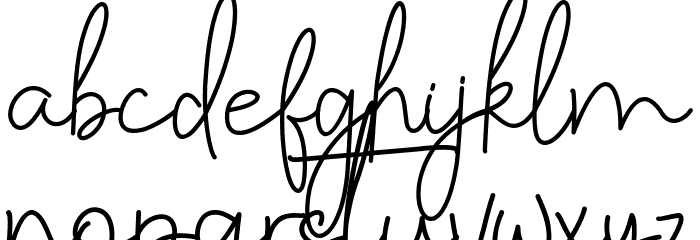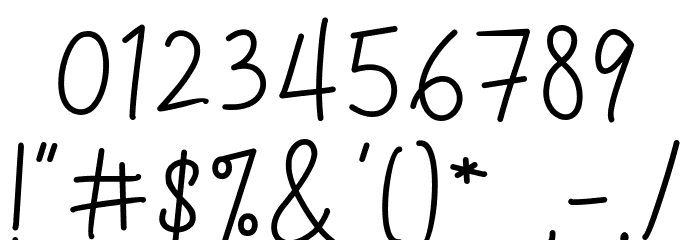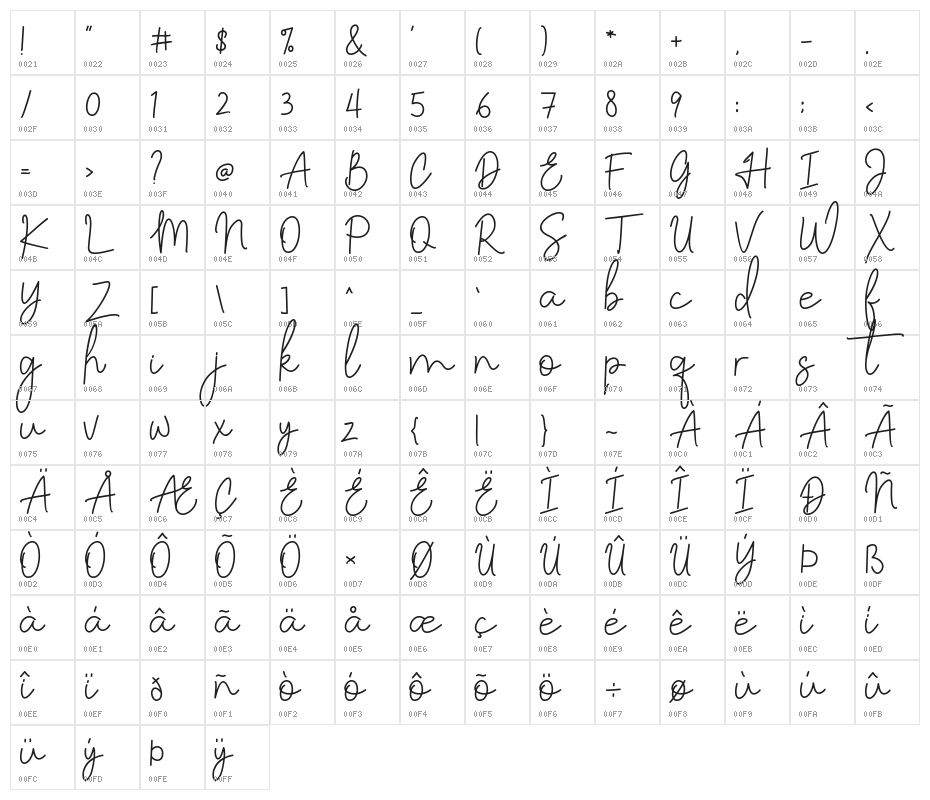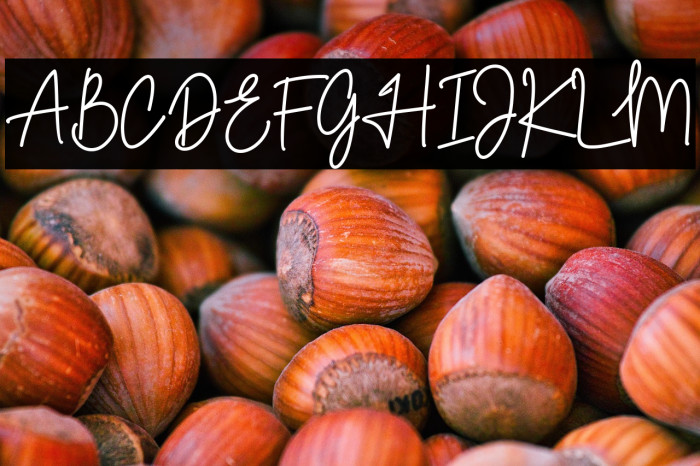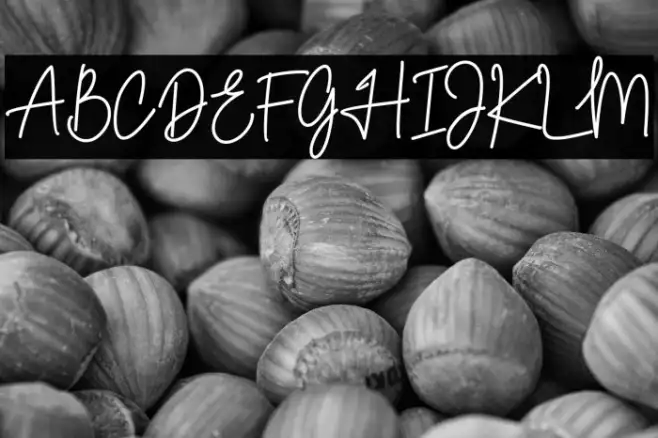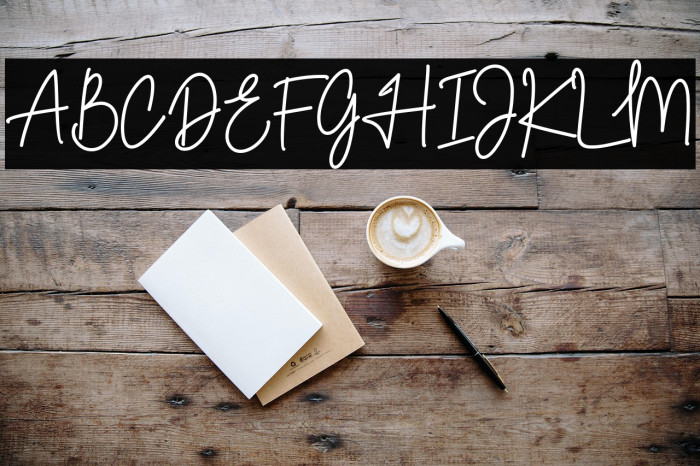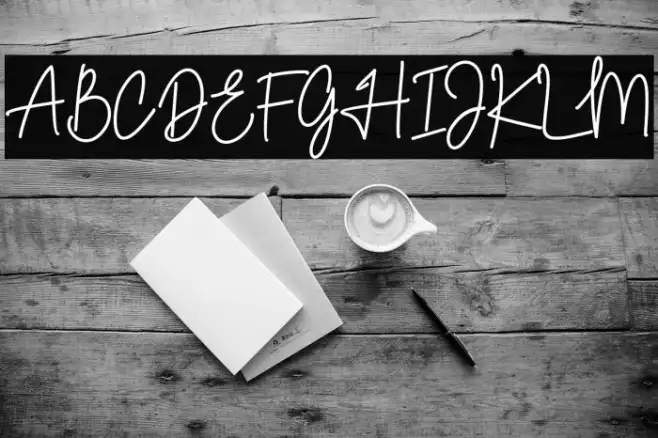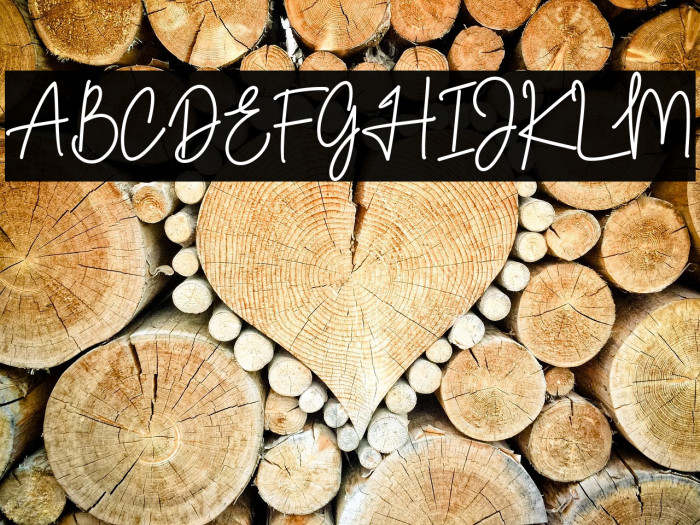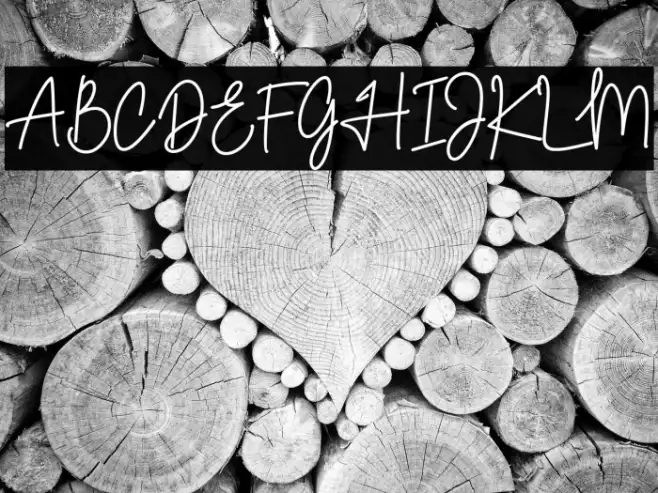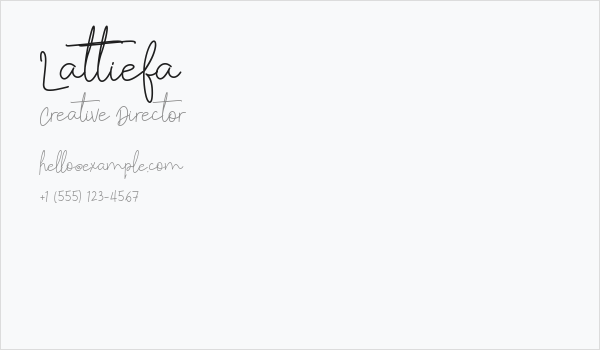
Lattiefa Font
This font features a playful and casual handwritten style, characterized by its fluid and connected strokes. The uppercase letters are slightly slanted, adding a dynamic feel, while the lowercase letters maintain a consistent flow, enhancing readability. The numerals are clear and distinct, matching the overall informal aesthetic. Special characters are integrated seamlessly, maintaining the font's cohesive look. This style is ideal for projects that require a personal touch, such as invitations, greeting cards, or branding materials that aim to convey warmth and approachability.
A playful, casual handwritten font with fluid, connected strokes.
- Font: Lattiefa
- Proposed Projects: Ideal for invitations, greeting cards, personal branding, and informal communication.
- Category: Handwritten
- Overall Style: Casual, Playful
- Use Case: Headlines, Informal text, Personal projects